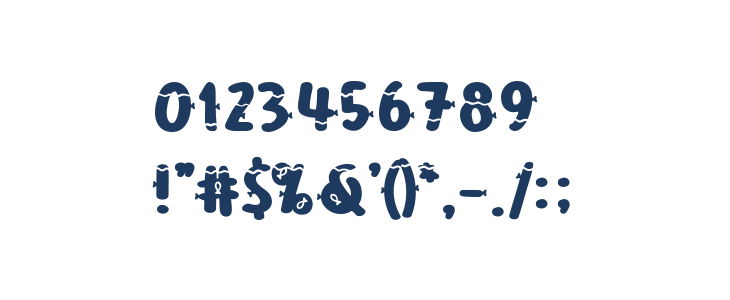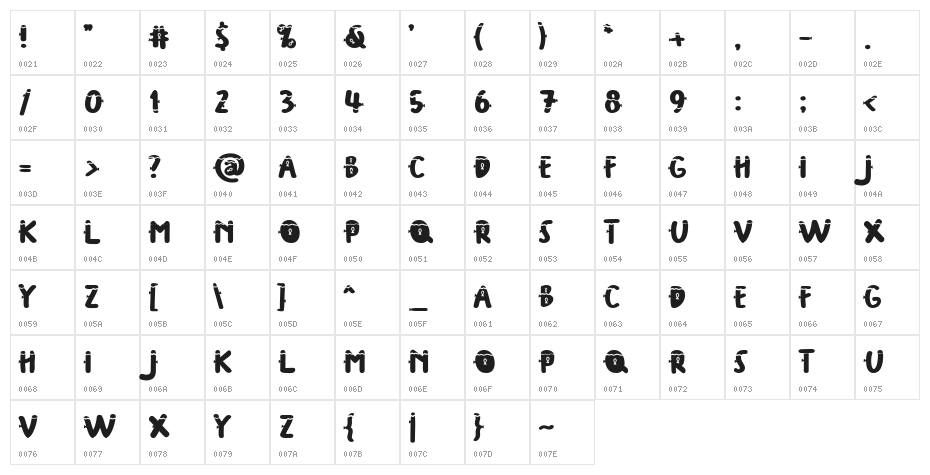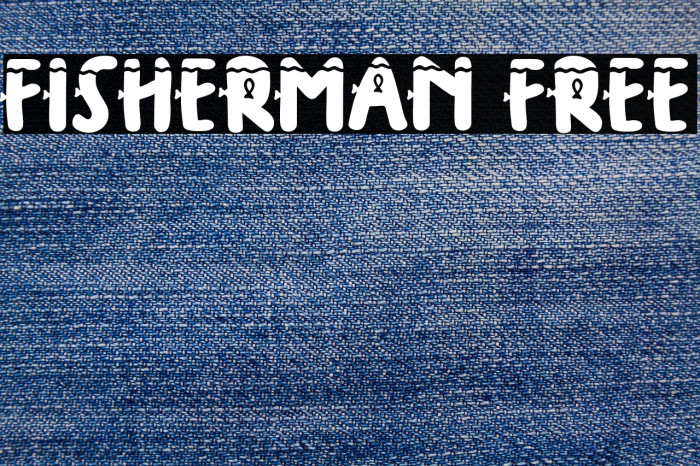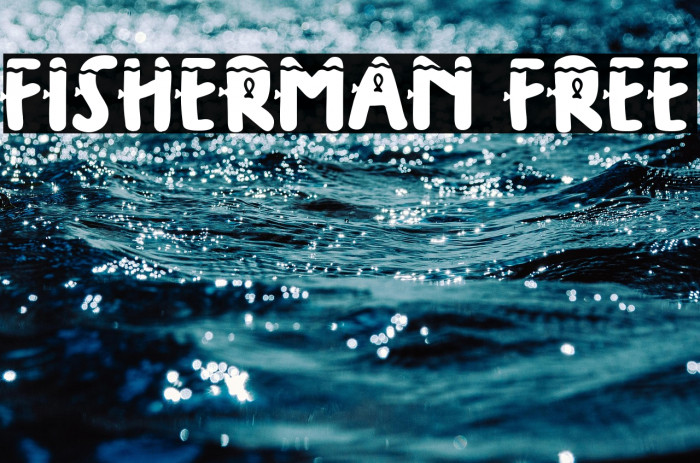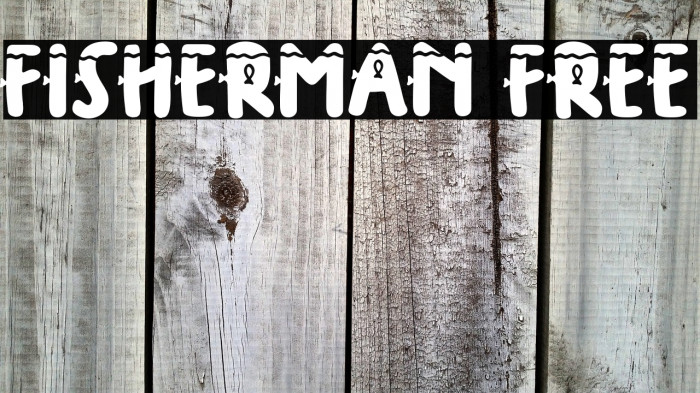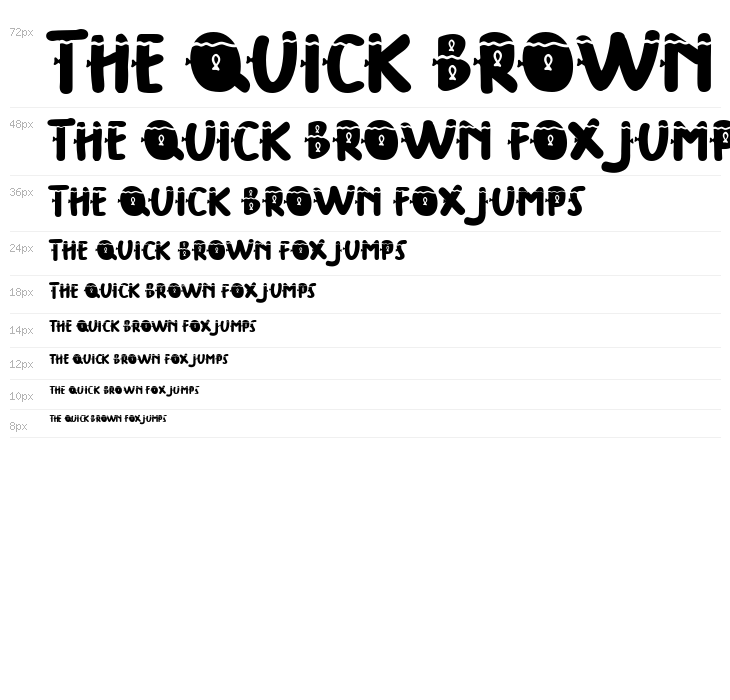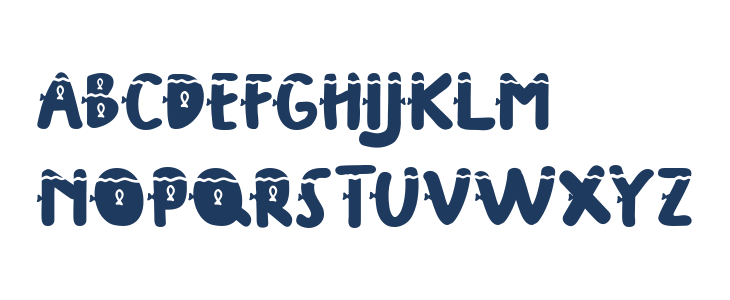
Fisherman FREE Font
Fisherman FREE Description
This font features a playful and whimsical design, incorporating elements that resemble fish hooks and aquatic themes. The characters are bold and rounded, with unique cutouts that add a sense of movement and fluidity. The uppercase and lowercase letters maintain a consistent style, while the numerals and special characters complement the overall theme. The font's distinctive appearance makes it suitable for creative and fun projects, particularly those related to fishing, water sports, or children's content.
| Use Case | Logos, Posters, Headlines |
| Proposed Projects | Ideal for children's books, fishing-related branding, water sports advertisements, and playful graphic designs. |